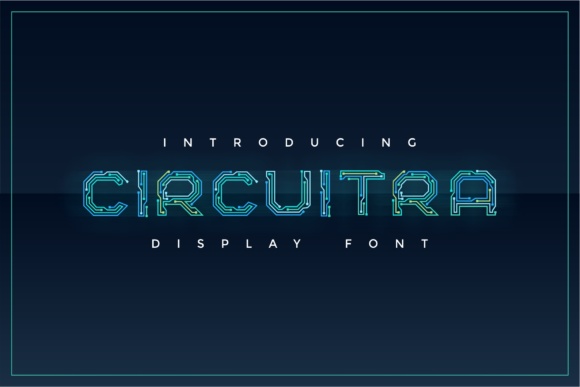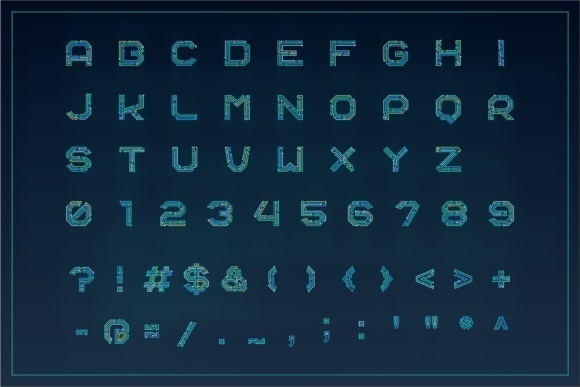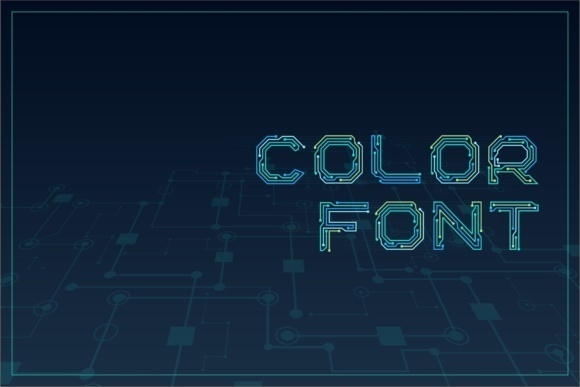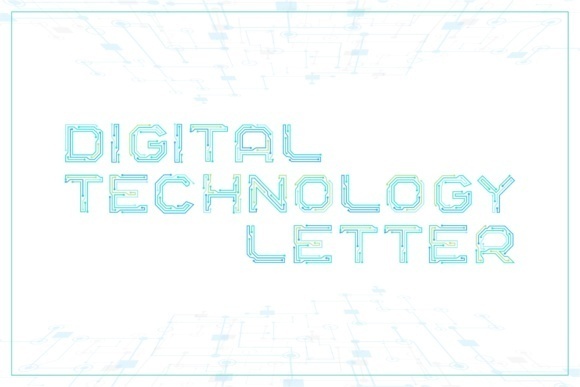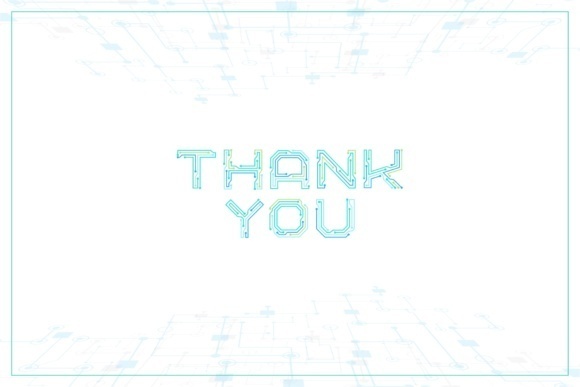
Circuitra Font
About Circuitra Font
Circuitra is a display color font that takes inspiration from the circuit components found in electronic devices. With its unique design and technological aesthetic, this font is perfect for a wide range of projects that require a touch of innovation and modernity.
Whether you’re working on technology-related designs, sci-fi themes, or any project that calls for a futuristic vibe, Circuitra can elevate your work to the next level. Its circuit-inspired letterforms and vibrant colors add a dynamic and captivating element to your typography, making it an excellent choice for logos, headlines, posters, and digital artwork.
Embrace the futuristic charm of Circuitra and let it bring a sense of technology and innovation to your designs. Whether you’re creating graphics for tech companies, gaming interfaces, or any other project that involves electronic themes, Circuitra is here to enhance your visual storytelling.
Unlock the potential of Circuitra and explore the possibilities it offers in the world of design. With its unique blend of circuitry and typography, this font will undoubtedly make a bold statement and leave a lasting impression on your audience.